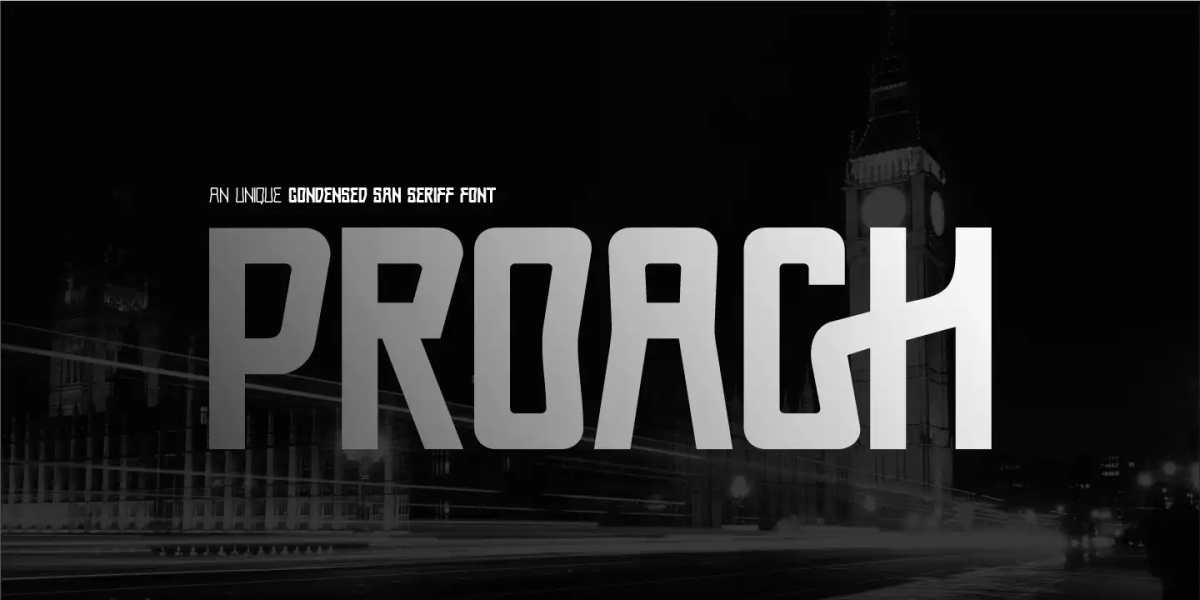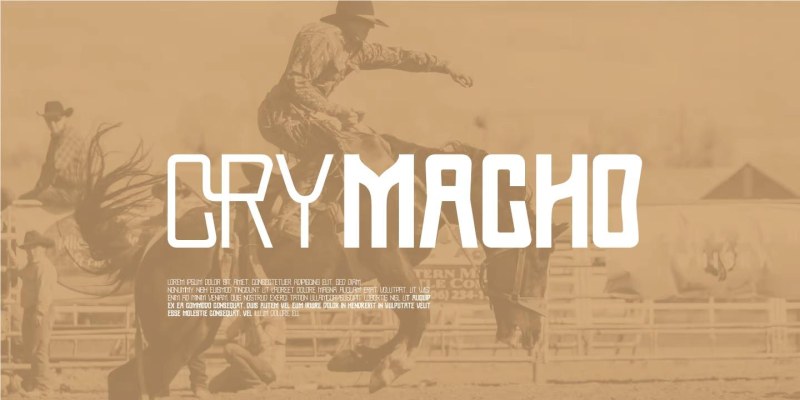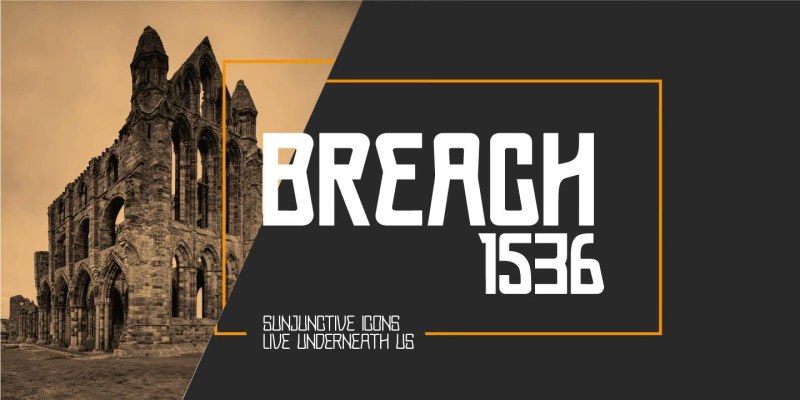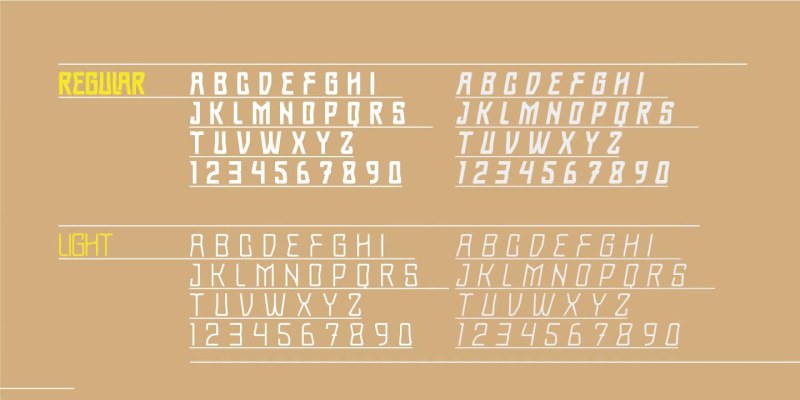
Proach Font
Poarch is a clean and modern condensed font, the font well designed as a sans serif font with all caps. It has round tip angle and different style as a sans font in common. The font is perfect for any project such as Brochure/Magazine Header, Logo Tagline, Flyer Titles and it also can be a paragraph text font.
Proach Font is a Font Family font that brings a professional and versatile look to your projects. Poarch is a clean and modern condensed font, the font well designed as a sans serif font with all caps.